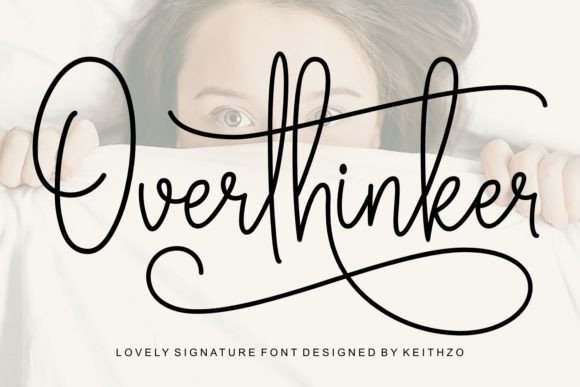
Overthinker Font
Overthinker is a lovely signature font that boasts sophisticated charm with its delicate curves and flowing lines. Ideal for enhancing the elegance of wedding invites, crafts design, logotype, print design, social media graphics, or branding materials, it adds a touch of refinement to any project. It is also PUA encoded which means you can access all of the glyphs and swashes with ease!